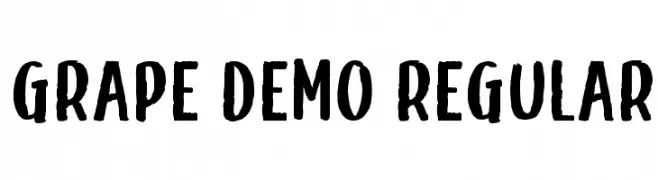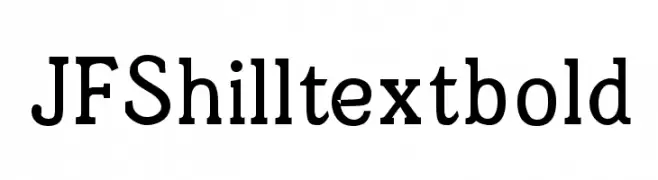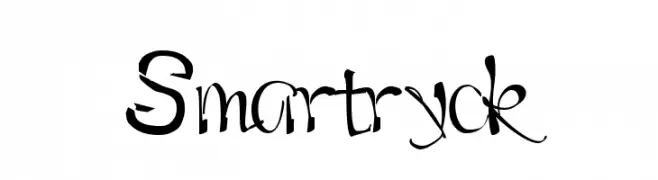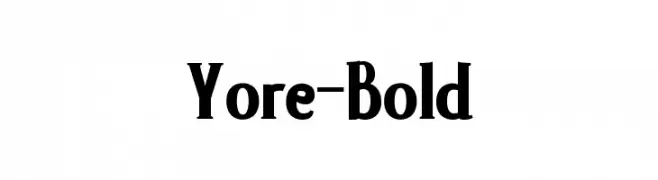
A sleek, italicized font with thin, elongated characters for a modern look.
( Bagus Belo Prayogo - biangwarna.tumblr.com )
A modern geometric font with thin lines and angular shapes.
( EvasUniqueFonts - Eva Barabas - www.etsy.com/ie/shop/DigitalTypefaceS )
A whimsical and decorative font with playful curls and loops, ideal for creative projects.
( K. Bishop Martinez )
A bold serif font with strong vertical strokes and a classic yet modern appeal.
( Mahima Khullar )
A playful, heart-themed font with a hand-drawn, whimsical style.
( Malre - David Masson Alalire - www.facebook.com/Community-Search-146103155534356/ )
A decorative and artistic font with bold, angular uppercase letters and whimsical lowercase forms.
( Phitradesign - Philip Trautmann - www.phitradesign-fonts.com )
A bold, hand-drawn font with a rustic and organic feel.
( Pilar Celda )
A bold, slightly condensed font with a vintage flair, ideal for impactful designs.
( Pixeluigi - Luis G. Galván - www.facebook.com/memohd25 )
A playful, rounded font with bold, smooth curves and uniform stroke width.
( So-ghislaine - Ghislaine - www.so-ghislaine.deviantart.com )
A sleek, ultra-thin, and elongated font with consistent stroke width.